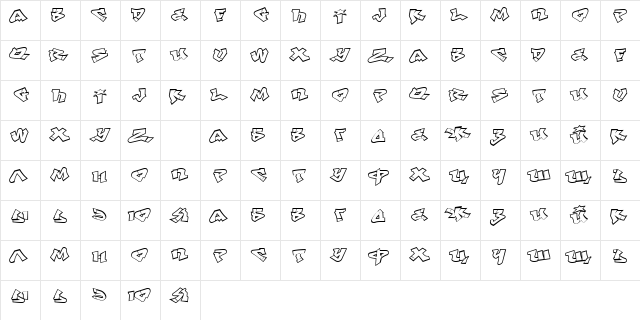
Def Writer | BASE Cyr Regular
| Designer | Chuck Davis (latinic) and Dubina Nikolay (cyrillic) |
Def Writer | BASE Cyr is a composed and adaptable typeface that performs quietly and consistently across a wide range of design contexts.